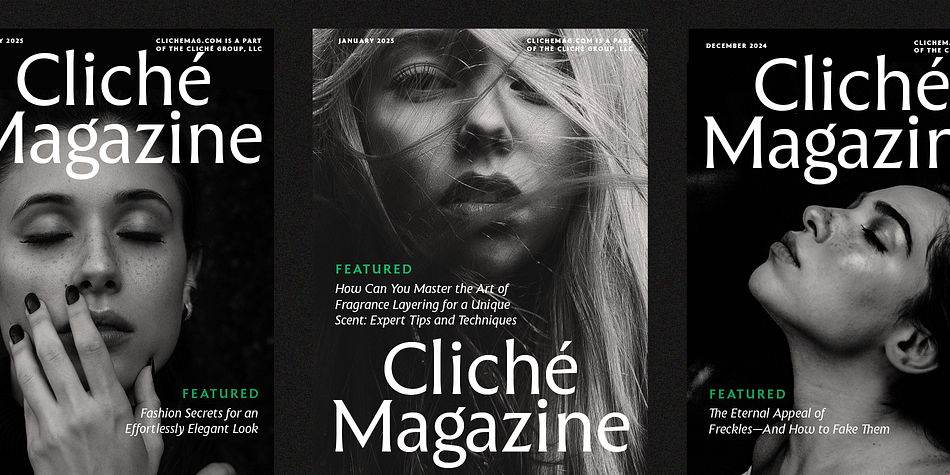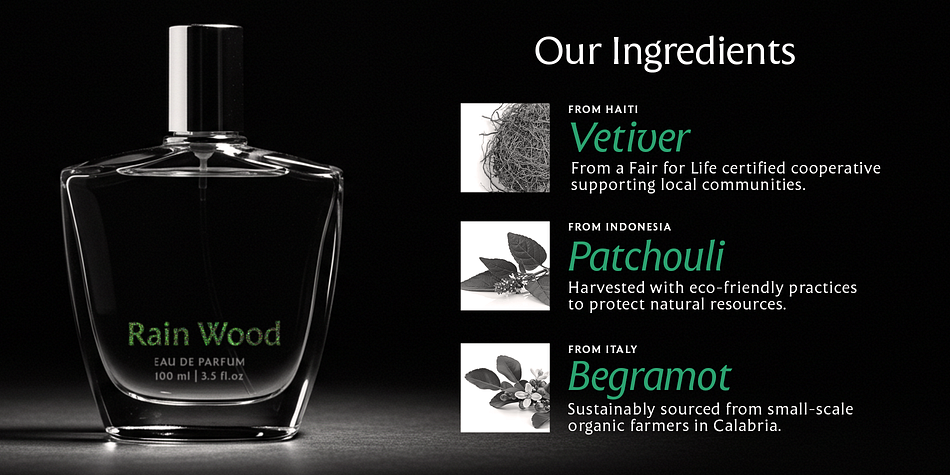
The Henston Pro
The Henston Pro is a serif font family. This typeface has fourteen styles and was published by Genotype Foundry.
The Henston’s initial point of inspiration lays somewhere between Berthold Wolpe’s earlier designs of Albertus and Classic Roman Alphabets, with Herman Zapf influence. It started as an experiment while reading Simon Garfield’s “Albertus. The biography of a typeface” book. I’ve started sketching letters trying to give them a more modern look. It was interesting to explore how “thin” I can go with this typeface without it loosing its readability and style.
The italics were designed with calligraphy in mind.
At the end it evolved into a seven weights family with Thin style having the most contrast and the bolder styles looking more like “carved in stone” once - this is where versatility of this typeface lays. To enhance the family I’ve also added quite a few ligatures as well as stylistic and swashed alternates. You can use it for all sorts of design work - from social media ads to websites, fashion, book covers, magazines etc.